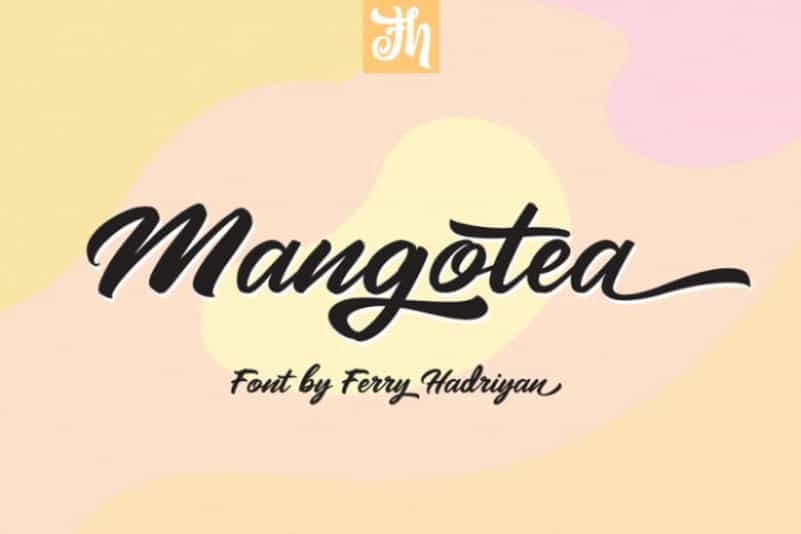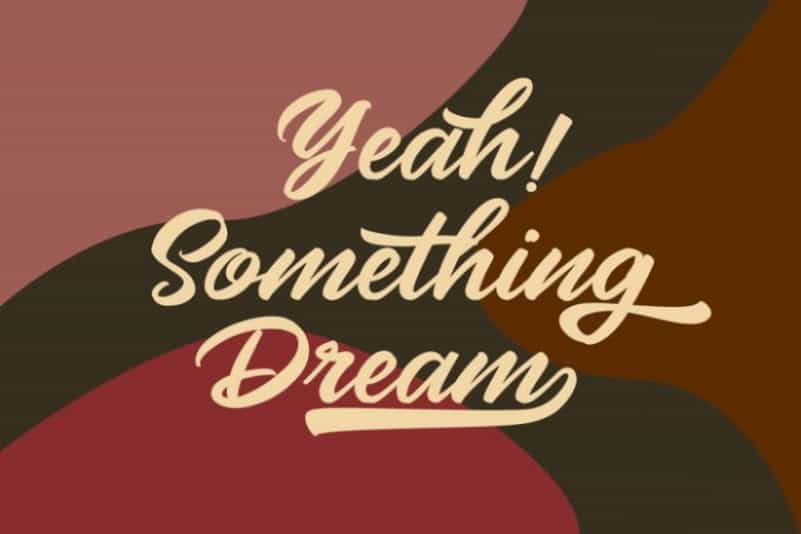
Introducing Mangotea Font. It is created and distributed by FHFont. Mangotea Script is Bold Script Brush Font with Handlettering Brush Style, and it has the opentype feature of the font.